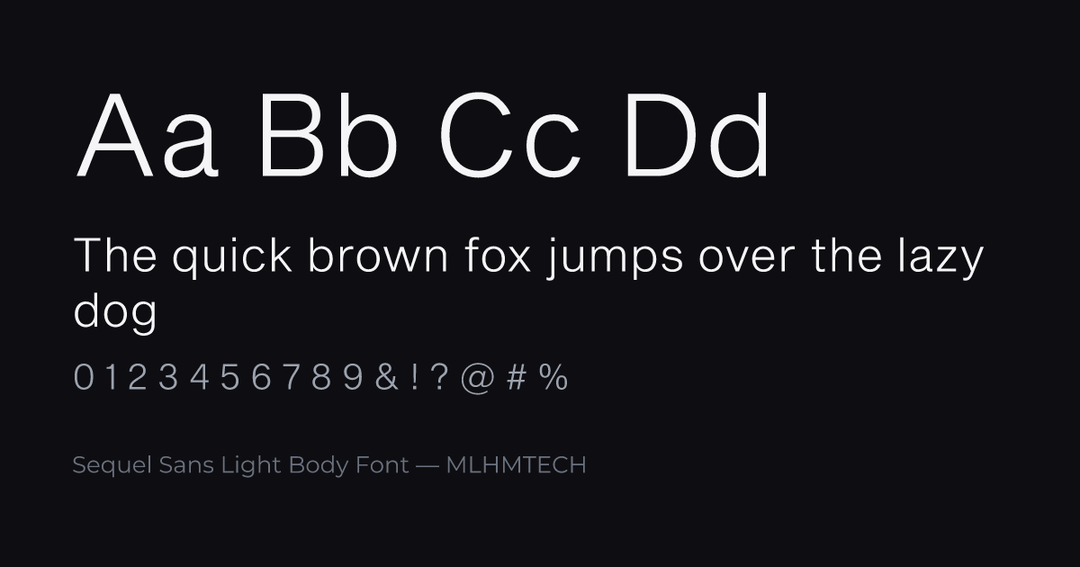
Sequel Sans Light Body Font
Sequel Sans Light Body is a refined sans-serif font with a light weight, ideal for elegant body text and modern, minimal designs.
Sequel Sans Light Body is a versatile sans-serif typeface that brings a clean, contemporary look to any project. Its light weight and balanced proportions make it perfect for body text, ensuring readability without sacrificing style. Whether you're designing a website, a brand identity, or print materials, this font adds a touch of sophistication.